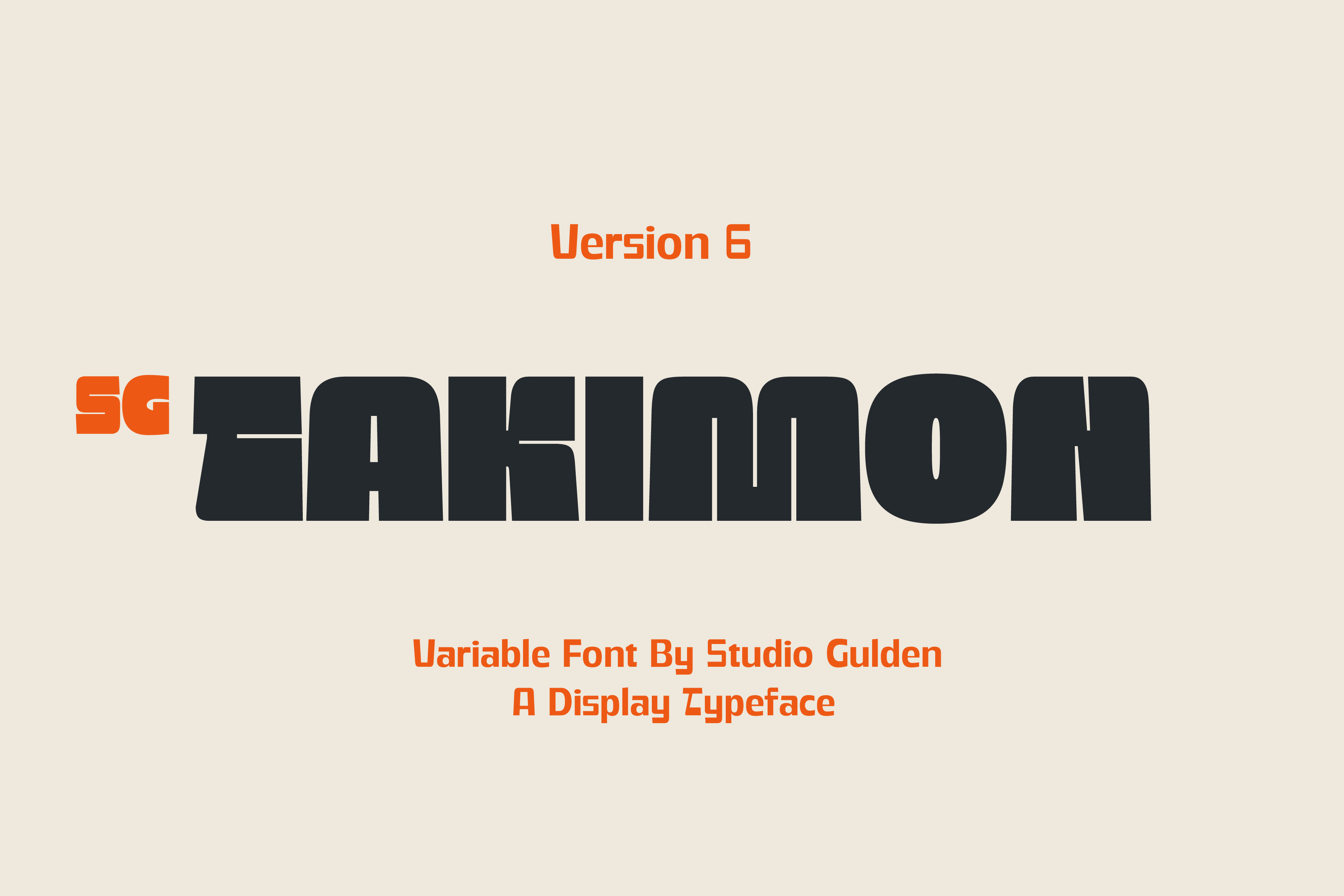
SG Takimon DEMO Font
About SG Takimon DEMO
Unleash your creativity with SG-TAKIMON, a versatile display typeface that packs a punch! This dynamic font boasts variable weight, allowing you to tailor the thickness of the characters to perfectly match your design intent. Whether you're crafting bold headlines, playful website headers, or eye-catching social media graphics, SG-TAKIMON's flexibility ensures you can achieve the desired impact.